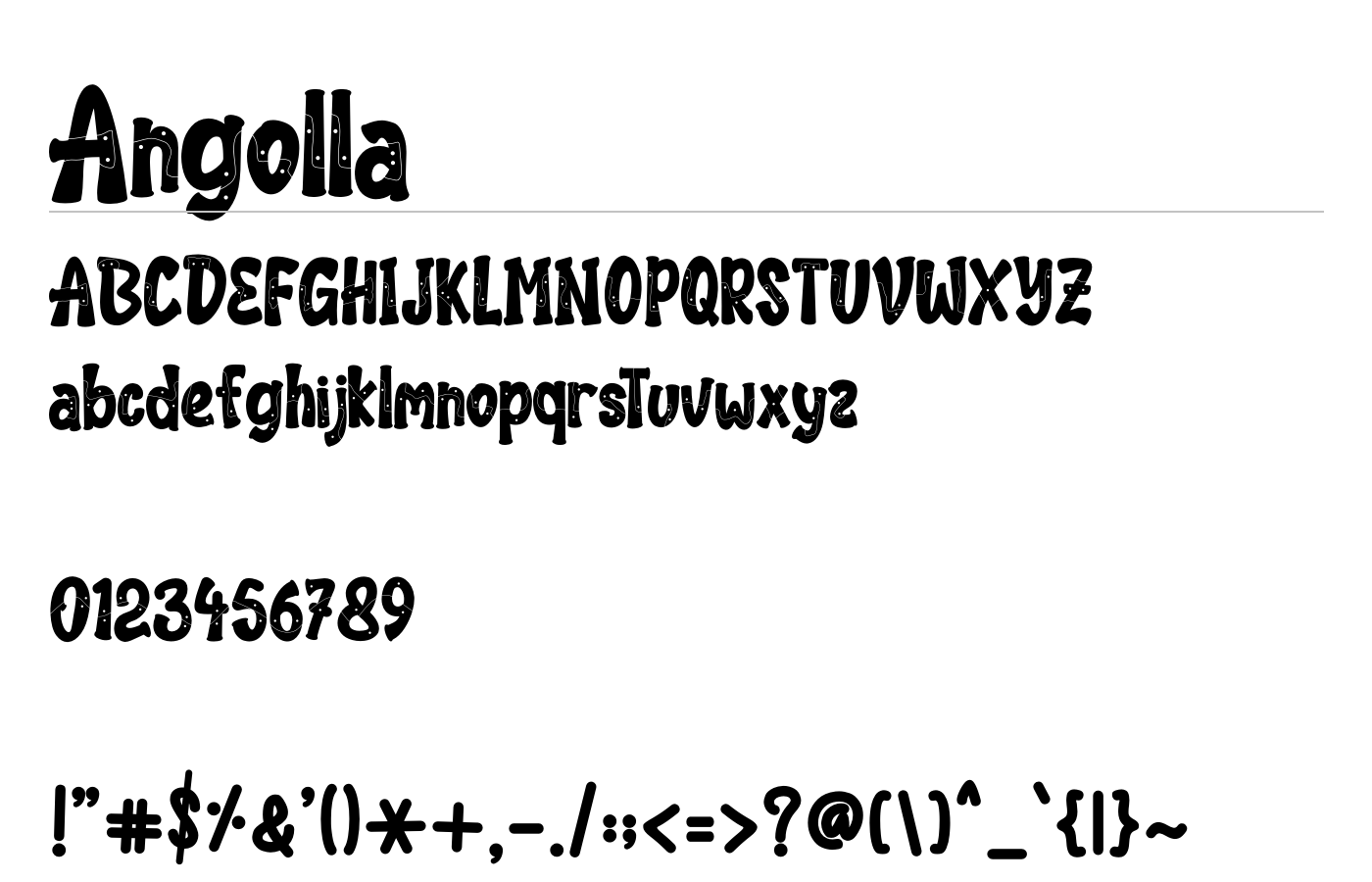
Angolla is a bold, playful sans serif font with a quirky, hand-drawn feel that features rounded, irregular shapes and whimsical stroke details. Its friendly, chunky letterforms with a moderate x-height make it perfect for fun, casual designs like children’s books, posters, or branding that wants a lively and approachable personality. This font shines in headlines and display uses where its unique character can stand out and grab attention.
Angolla Font
About Angolla Font
| Font family | Angolla Font |
| Designer | Ahmad Afandi |